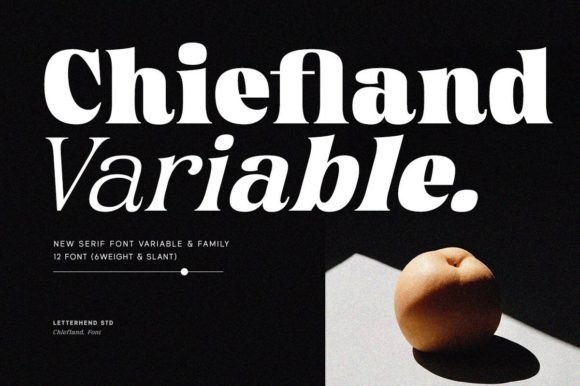
Introduce yourself to Chiefland, a remarkable serif font that captivates the eye with its confident strokes, exuding the essence of timelessness and sophistication. Designed to rule your creative kingdom, Chiefland commands attention with its regal presence, adding an air of majesty to every digital space it graces.
Chiefland's unwavering sharpness and unwavering precision make it the perfect choice for crafting captivating titles that demand admiration. Its bold stance gives your words the power to conquer the digital realm, ensuring your message reigns supreme. This font is the royal decree, the herald of your ideas, declaring their significance to the world.
With Chiefland, you unlock the gateway to a world of endless possibilities, where your imagination knows no bounds. Watch as your designs transform into captivating masterpieces, each letter a work of art, each word a declaration of your creative prowess. Craft logos that radiate authority, design invitations that promise an unforgettable experience, and compose social media posts that capture hearts and minds.
Embrace Chiefland's regal allure, let it elevate your digital creations to unprecedented heights, and claim your rightful place as the sovereign of style and elegance. Embrace the power, ascend the throne of creativity, and bask in the glory of Chiefland.